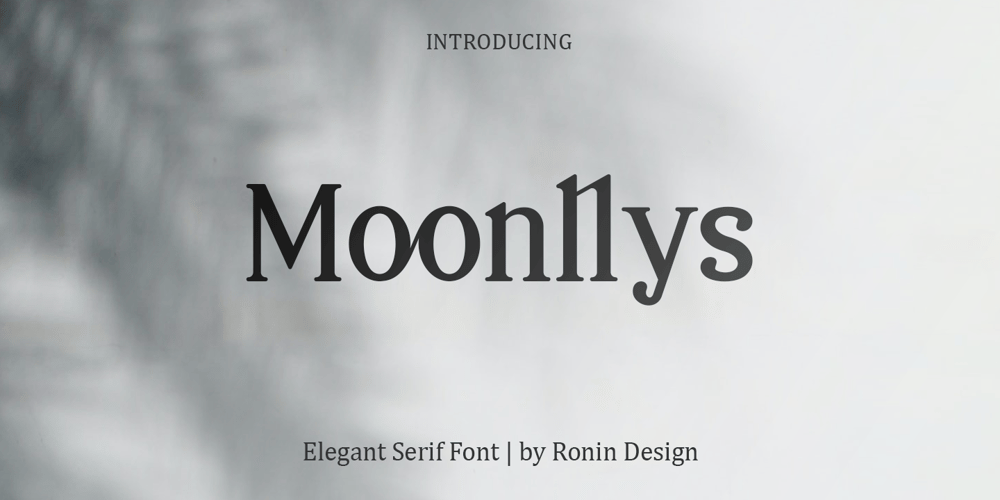
Moonllys Font Family was designed by RoninDesign and published by Ronin Design. Moonllys contains 1 styles and family package options. Moonllys is serif font, designed with elegant and classy style. Moonllys also perfect for title and body text, with featuring ligatures and alternates will makes your design look stunning.